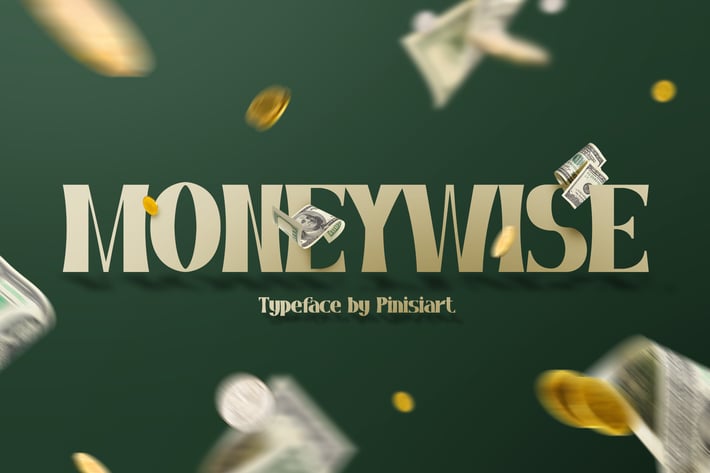
MONEYWISE - Business Display Font
Ka-ching! money will bring a happiness and prosperity to those who could put that in their hand, not in their head.
Suit perfectly for mature and elegant themes books market, economic poster, stationary, school supplies font, youtube covers, youtube thumbnails, social media page covers and so on...